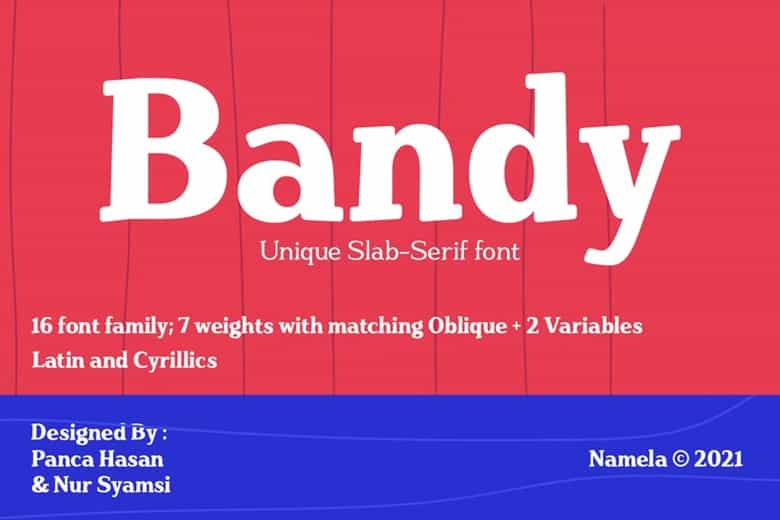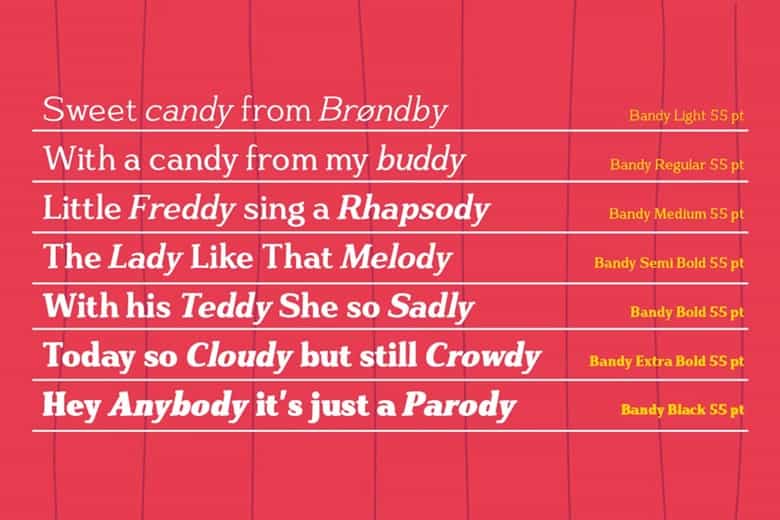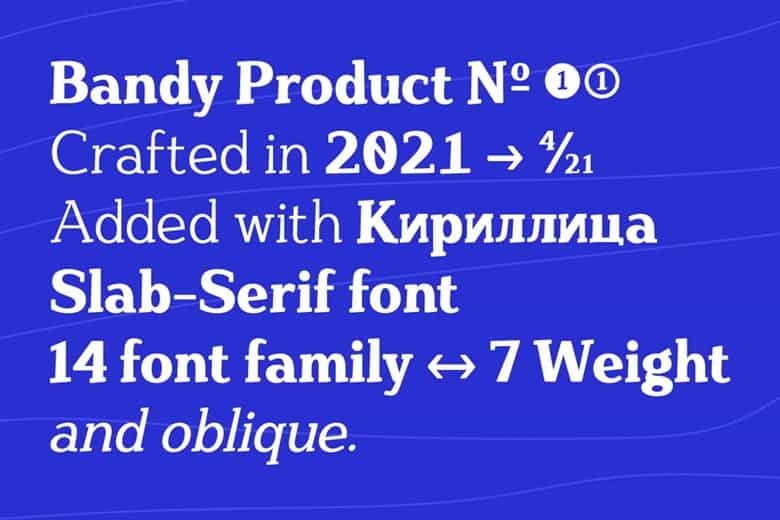
Discover Bandy Font, part of the Slab Serif collection—a versatile and unique font perfect for adding a personal touch to your projects. Download it for free and enjoy crafting designs with style, from invitations to social media posts. This font is available exclusively for personal use, giving you the freedom to create without limits. Unlock your creativity with Bandy Font today!
Bandy Retro Slab Font is a perfect combination of round and bent edges with slab shapes, which is why the name corresponds to its contents perfectly.. It is a pretty multifunctional typeface, both excellent for use as display and for the content text. Indeed, it features a cool and contemporary look making it suitable for numerous design and printing endeavours, enriching layouts with its non-trivial look.